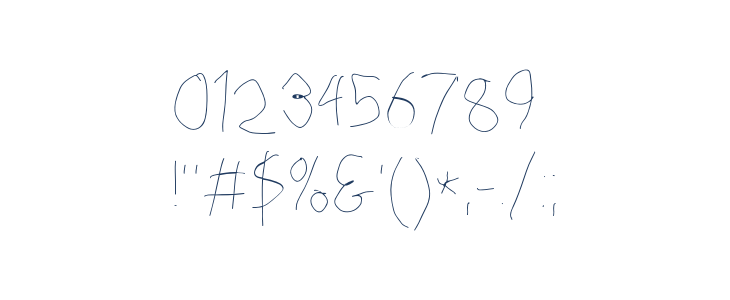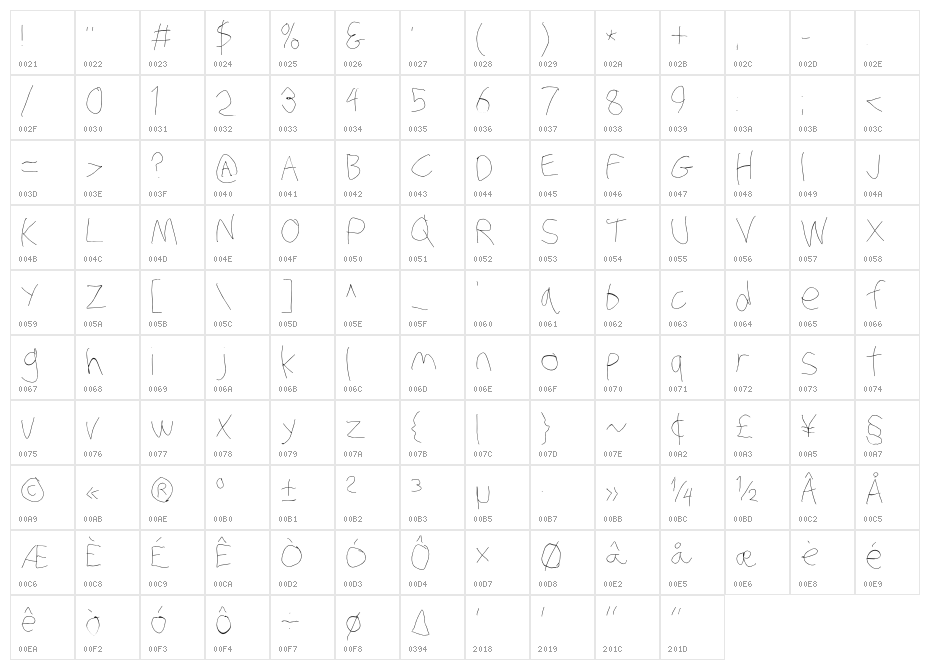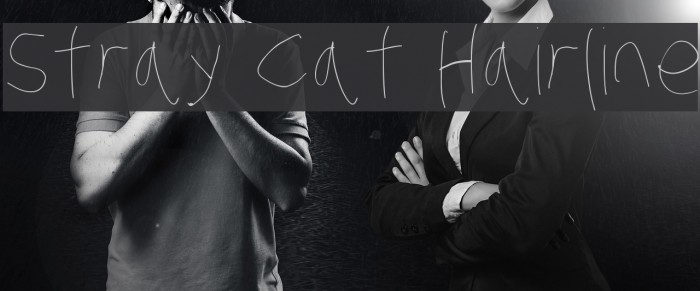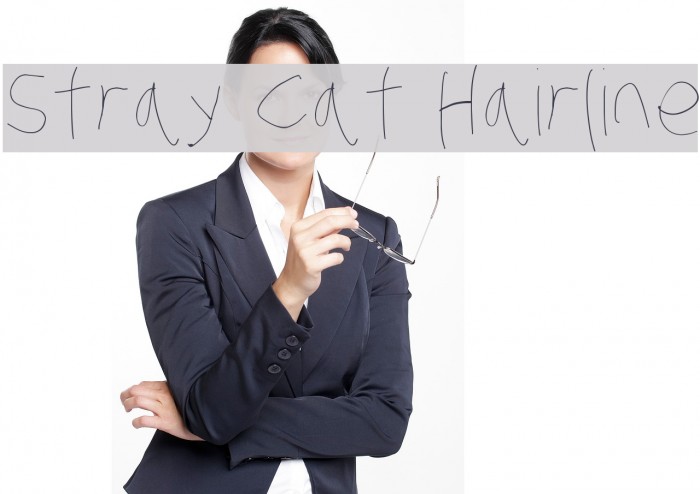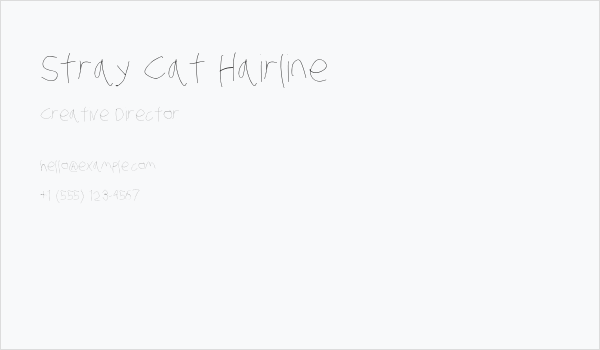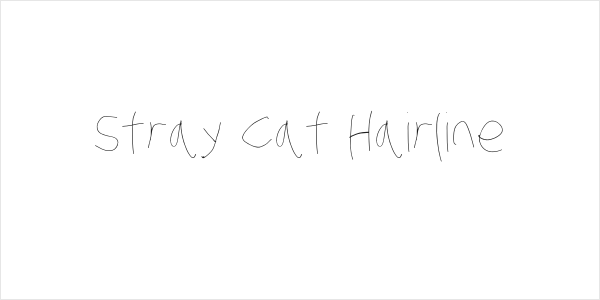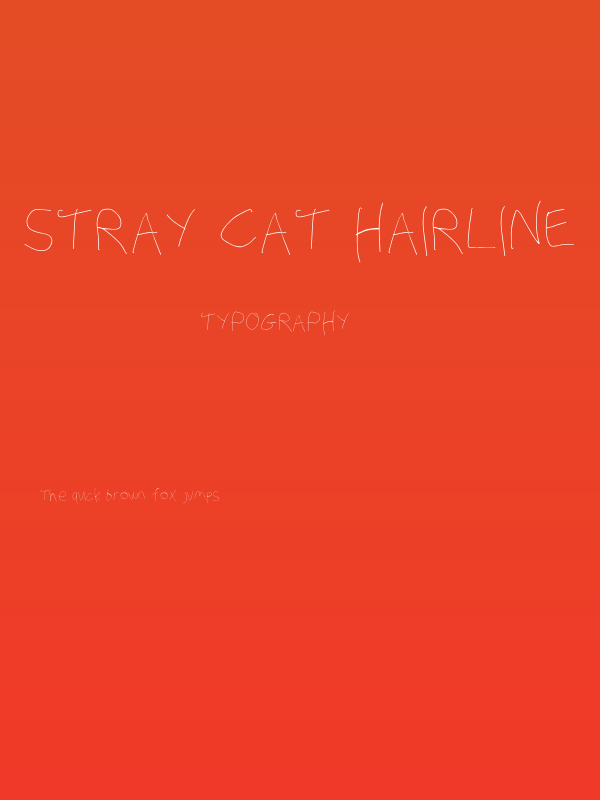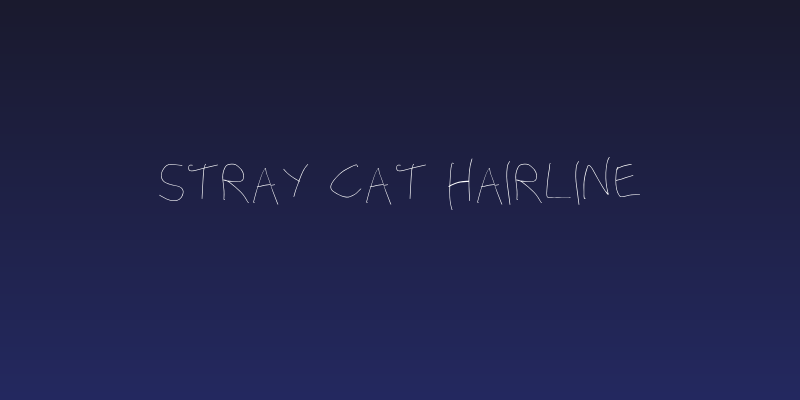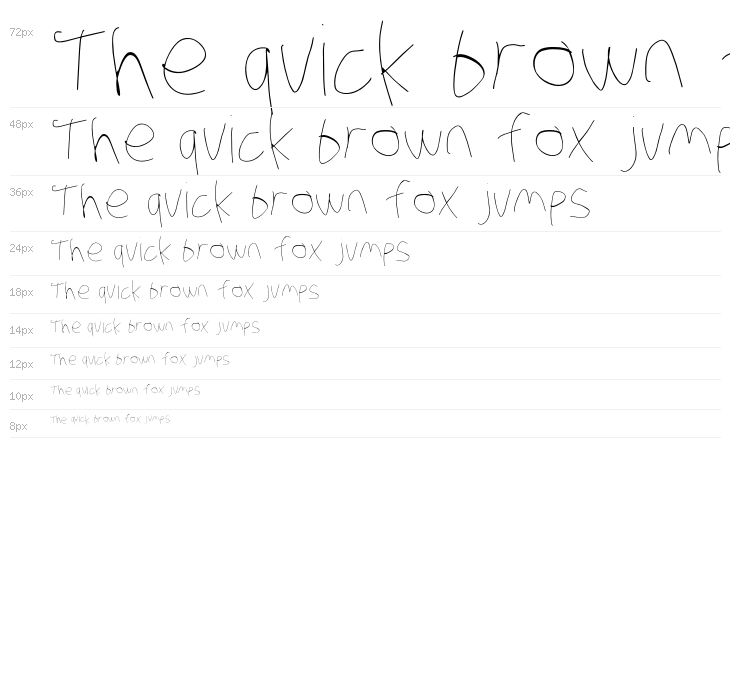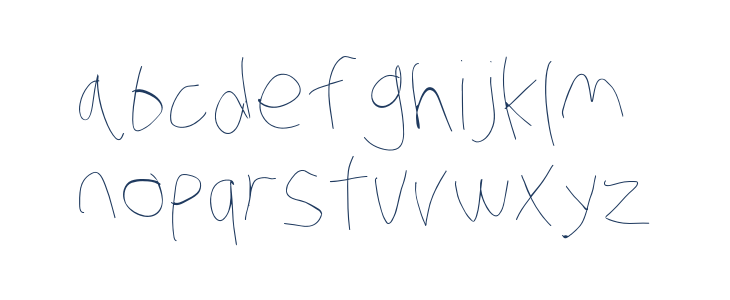
Stray Cat Hairline Font
Stray Cat Hairline Description
This font features a playful and whimsical handwritten style, characterized by its thin, delicate strokes that resemble a casual, freehand sketch. The letters are uneven and slightly irregular, adding a sense of spontaneity and charm. The uppercase and lowercase letters maintain a consistent style, with rounded edges and a light, airy feel. The numbers and special characters follow the same aesthetic, ensuring a cohesive look throughout. This font's unique personality makes it suitable for creative projects that require a touch of individuality and artistic flair.
| Overall Style | Playful, Artistic |
| Use Case | Headlines, Creative projects, Informal communications |
| Proposed Projects | Ideal for greeting cards, children's book illustrations, personal blogs, and creative branding projects. |